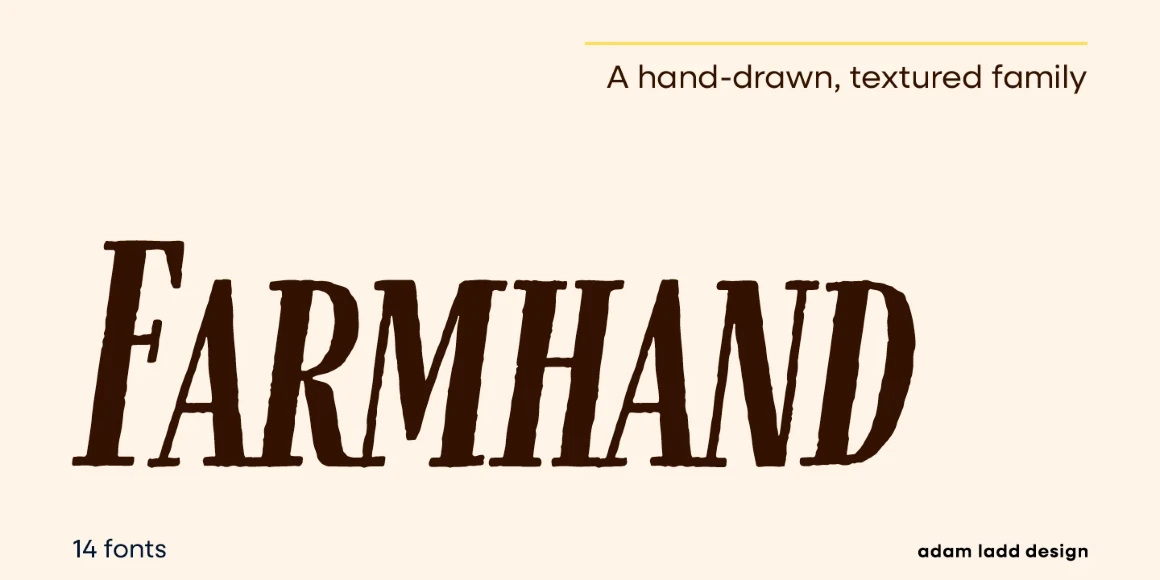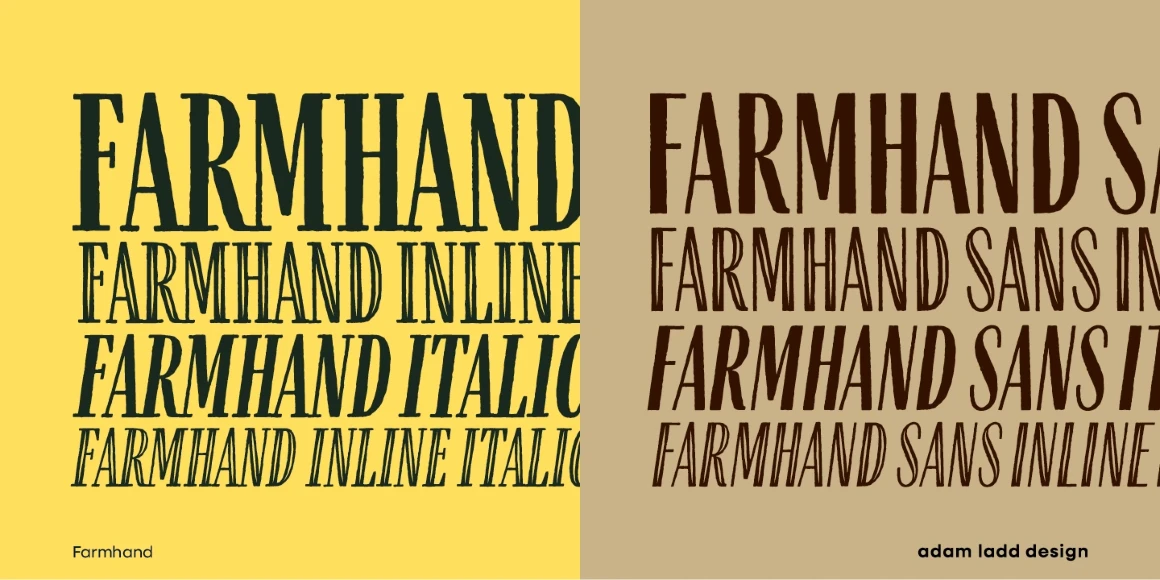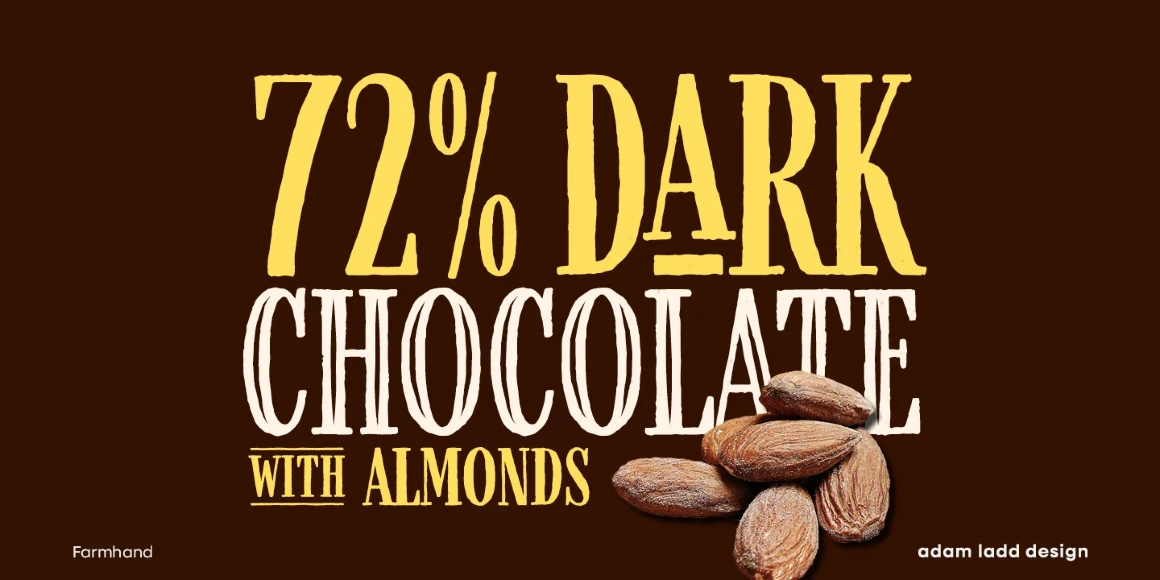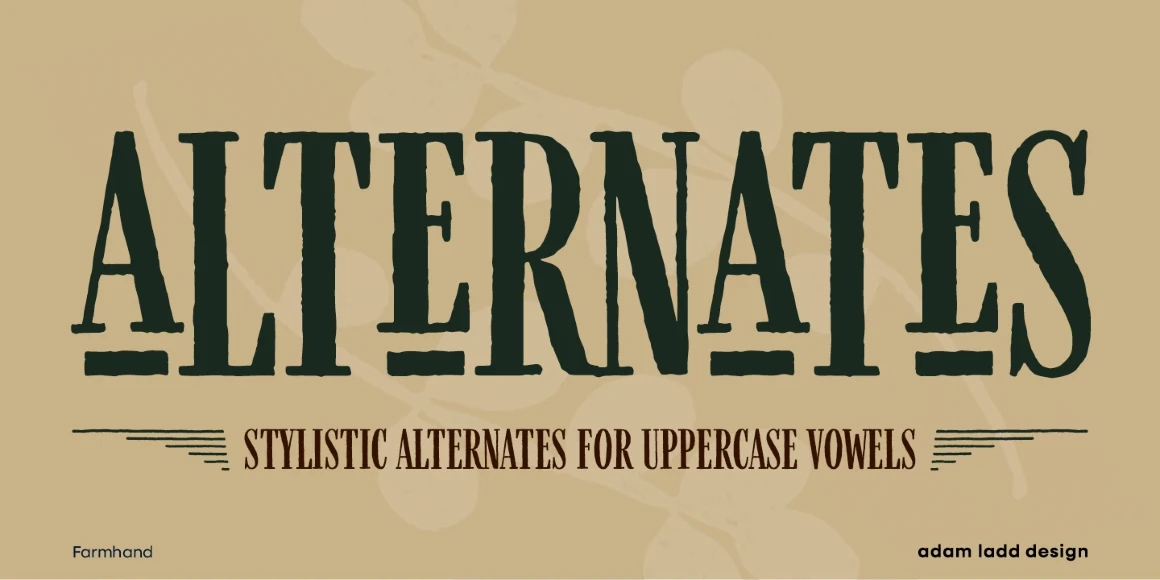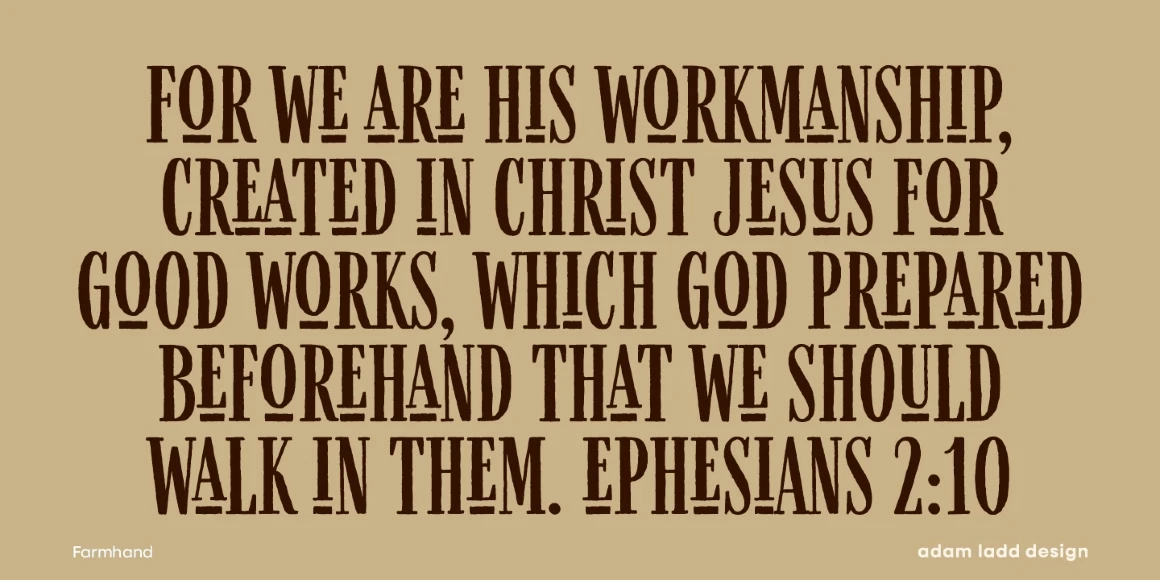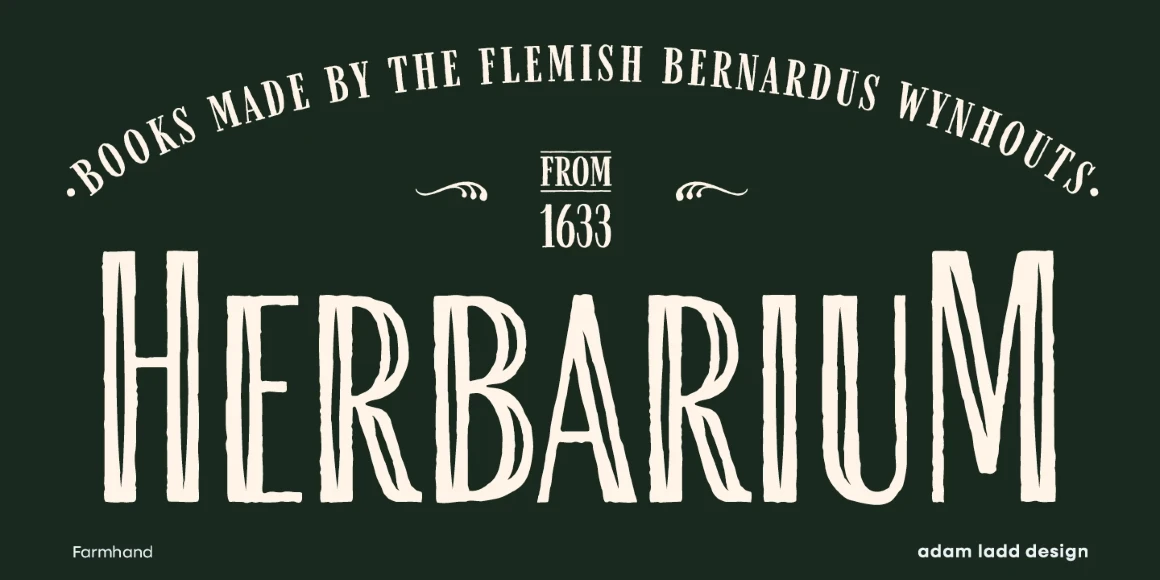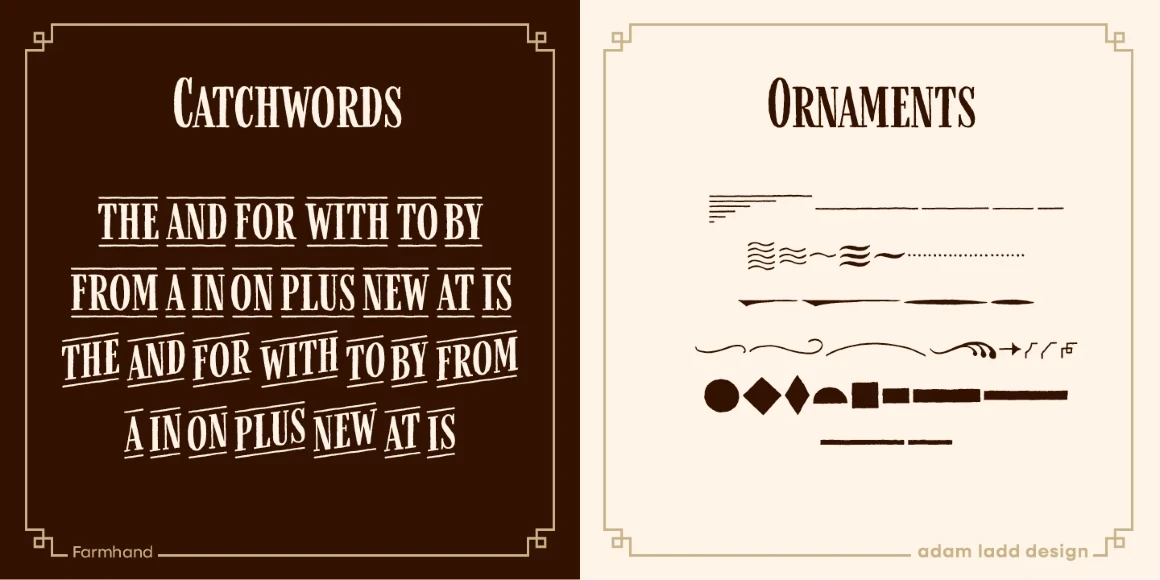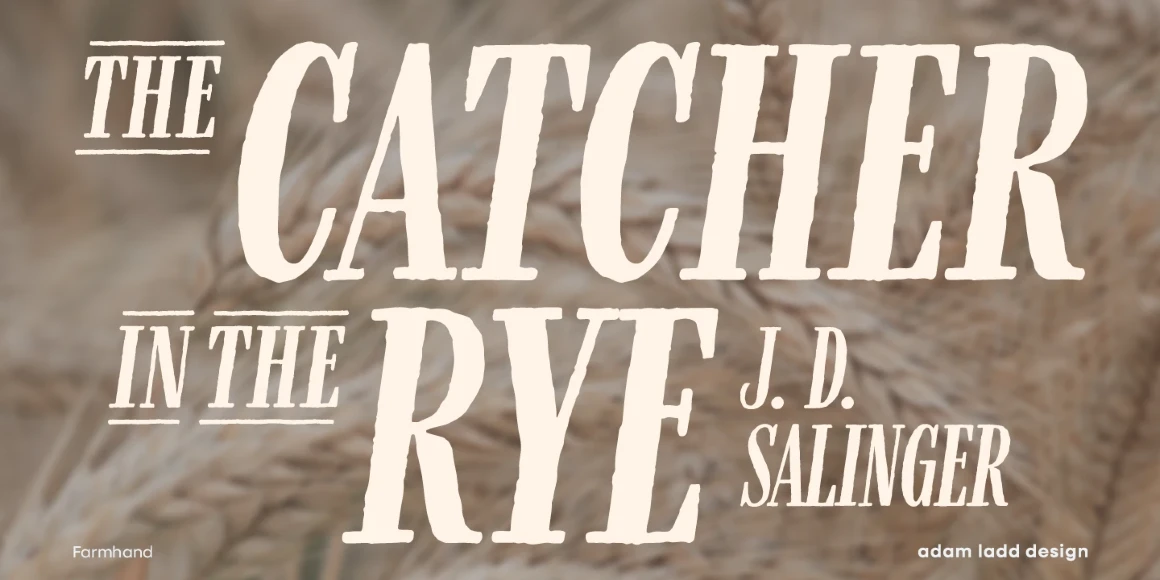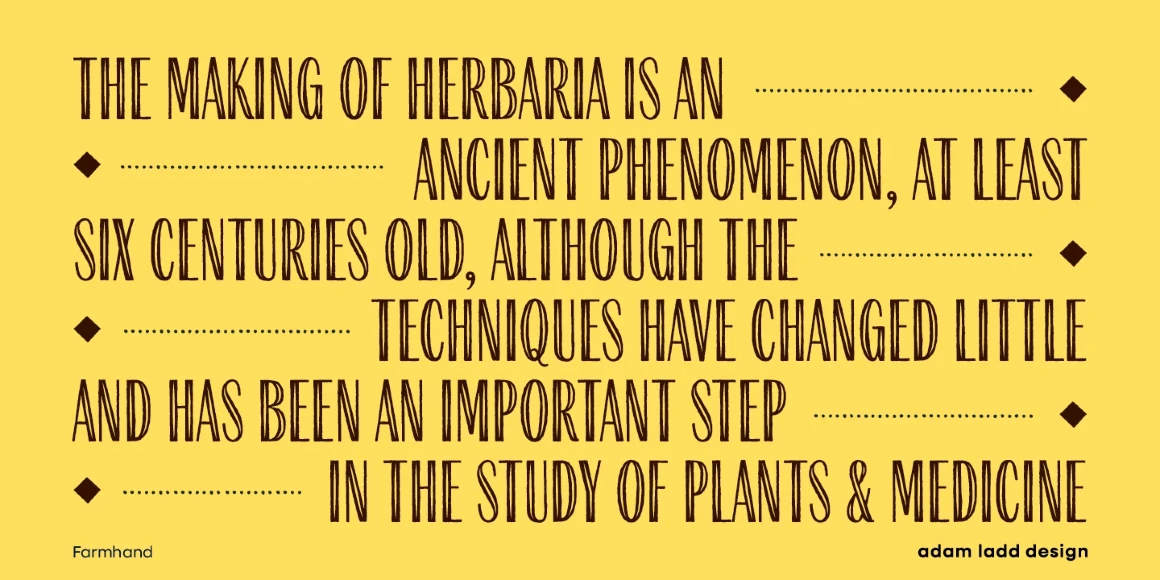
Farmhand
By Adam Ladd
Farmhand Regular
Farmhand Regular Extras
Farmhand Regular Inline
Farmhand Regular Italic
Farmhand Regular Italic Extras
Farmhand Regular Italic Inline
Farmhand Sans Regular
Farmhand Sans Regular Inline
Farmhand Sans Regular Italic
Farmhand Sans Regular Italic Inline
Farmhand is a hand-drawn all-caps condensed serif and sans family, including inline, italic, and extras. The textured typefaces are all well-suited for branding and other graphic design situations where you want to lean into a natural, vintage, or homemade vibe. Experiment by mixing and matching the casing for a variety of titling effects. Or introduce the matching catchwords and ornaments in the extras style. Also included are stylistic alternates for the uppercase vowels for more flair.